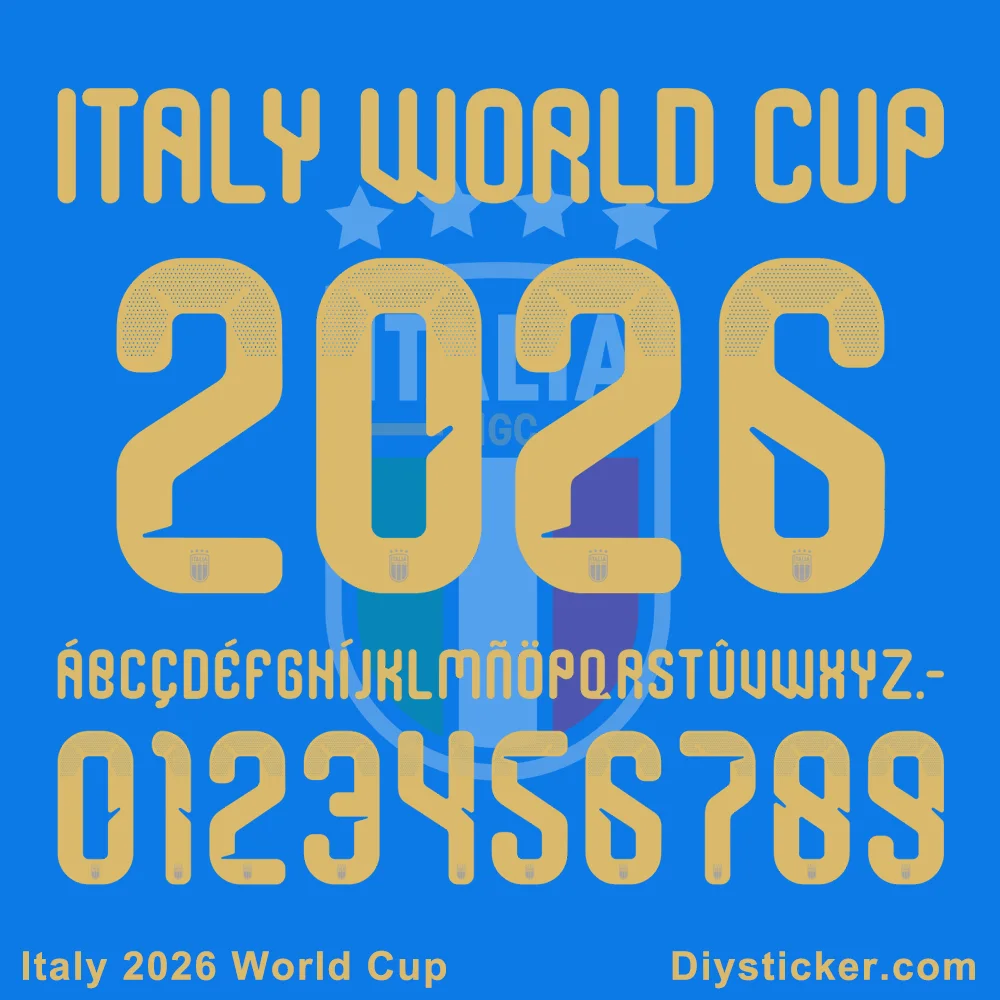
Show your passion for the Azzurri with the official Italy 2026 World Cup Font. This is the authentic typeface used by the Italian National Team (FIGC) for its official World Cup kits, player names, numbers, and tournament graphics.